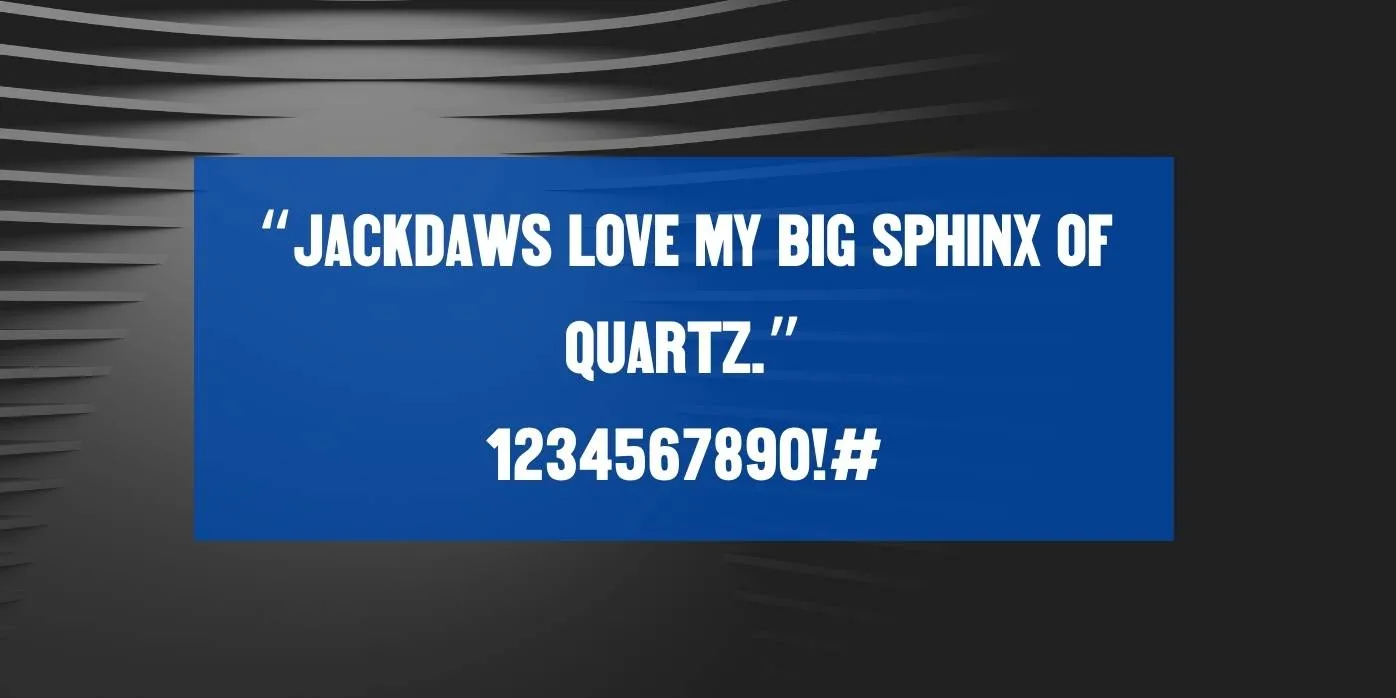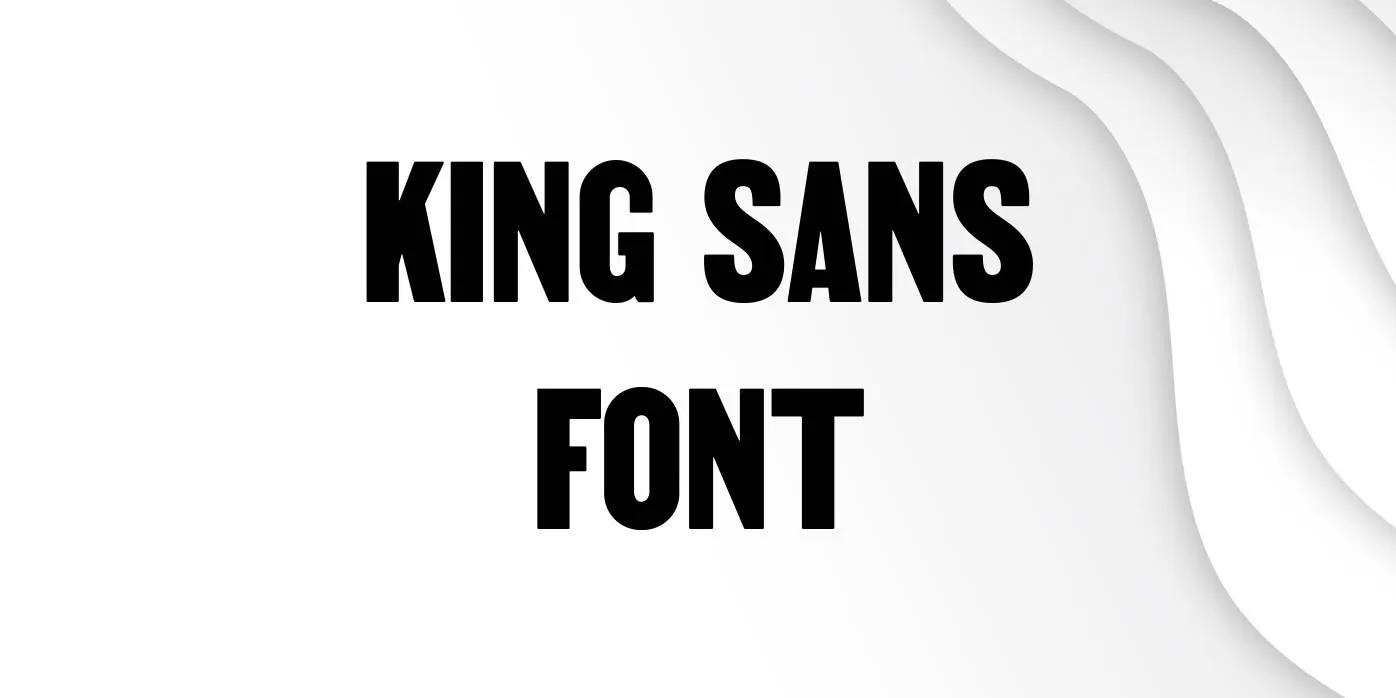
King Sans Font
Today we introduce King Sans Font which belongs to the sans serif font family. This clear and elegant typeface was designed by Cody Curley and released through Curley Design. This gorgeous font has a minimalistic design that makes it perfect for any branding, logos, headlines, and body text. This sans serif font family includes 6 weights – Thin, Light, Regular, Medium, Bold, and Black – for you to choose from.
Each weight includes oblique versions as well. In total there are 36 fonts in the King Sans Font family. For Adobe Photoshop, you can also use this typeface. Another similar font which is ginora sans font is perfect for different designs.
This stunning font supports Latin-based languages as well as Cyrillic languages. This means that it can be used for writing in English, Russian, and many other languages. You can also use its generator tool. To download this typeface you will have to visit our website.